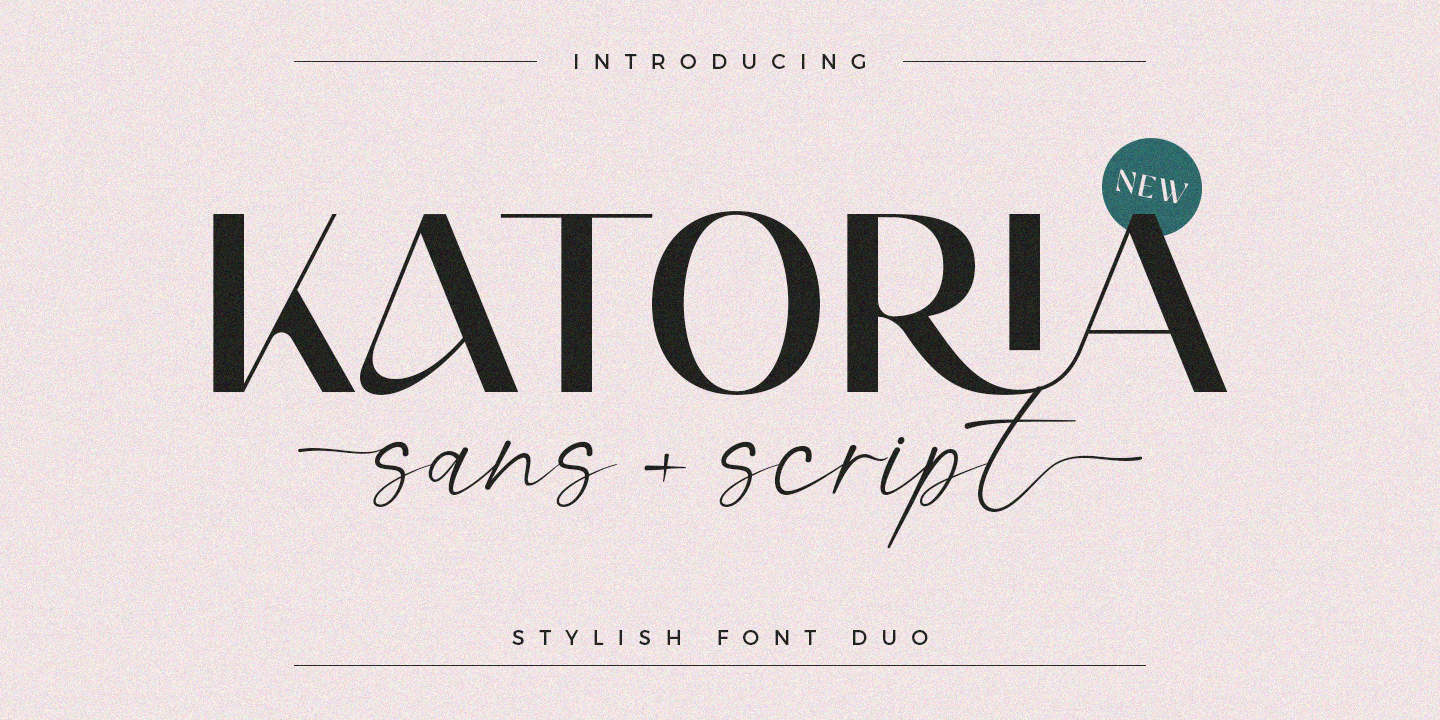
Katoria Sans Font is perfect for modern tech startups, contemporary design agencies, innovative software companies, sleek mobile applications, progressive corporate branding, cutting-edge user interfaces, sophisticated web platforms, advanced technology services, forward-thinking business communications, and clean digital experiences.
Katoria Sans Font is exciting because it delivers contemporary sophistication and technological precision through streamlined letterforms that embody modern innovation and the clean aesthetics of advanced digital design, making it perfect for brands that need to communicate forward-thinking expertise and contemporary professional excellence.
The Katoria Sans Font family includes multiple weights from Thin to Black with matching italics, extensive language support, and modern OpenType features, providing designers with comprehensive typographic systems for creating cohesive brand experiences across all digital and print applications.
When your project demands contemporary authority and technological sophistication, Katoria Sans Font Free Download provides the perfect typographic foundation for modern business success. This versatile sans-serif typeface combines cutting-edge design principles with human accessibility, ensuring your communications project both innovation and approachability. The streamlined letterforms and comprehensive weight range make this font an essential choice for technology companies, design studios, and any application where modern credibility, innovative thinking, and contemporary excellence are crucial for establishing market leadership and building trust with clients who expect the highest standards of modern design and technological sophistication in today's rapidly evolving digital landscape where clear communication and forward-thinking presentation determine competitive advantage.